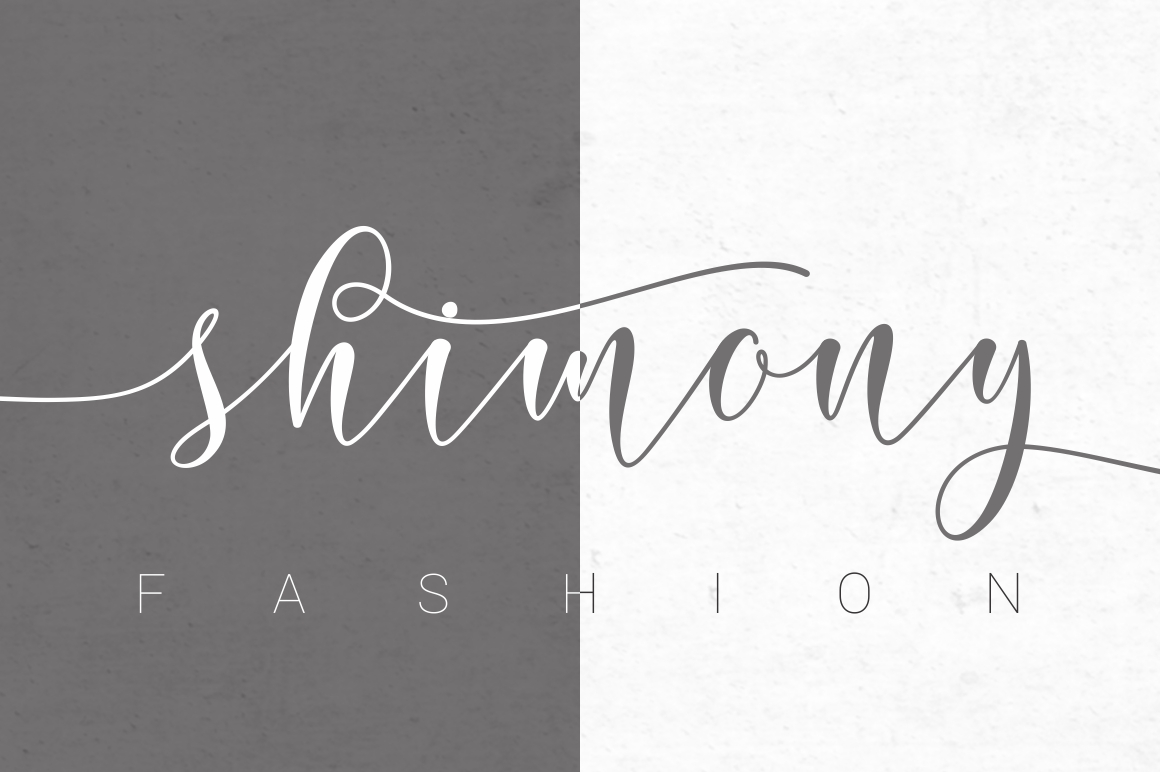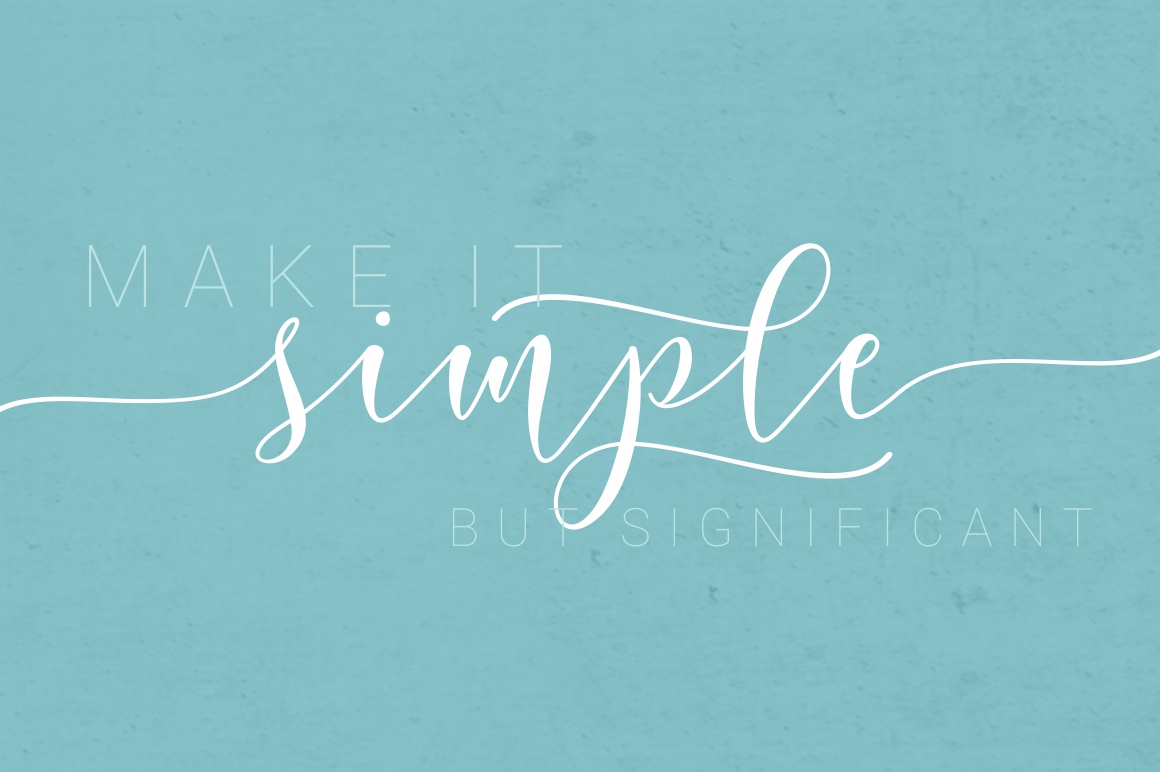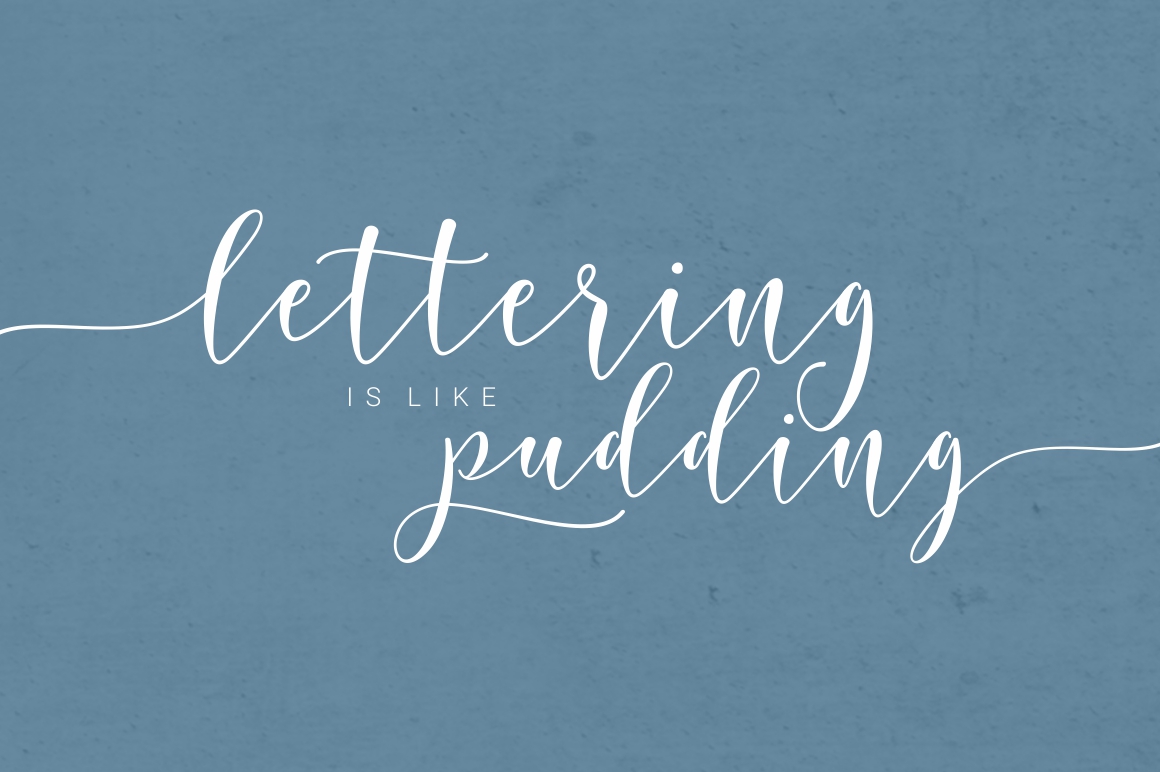
Introduction to Rosetica Font
As a designer, have you ever been stuck on a creative project, struggling to find the perfect font to bring your vision to life? We’ve all been there – hours spent scouring the web, searching for that elusive design resource that will elevate our work. But what if we told you that your search is over? Enter the Rosetica Font, a stunning script font created by FadeLine that’s sure to be the game-changer your projects need.
With its smooth, elegant lines and over 700 unique handmade glyphs, the Rosetica Font is a high-quality design resource that’s perfect for any creative project. Whether you’re working on a logo, a brochure, or a social media campaign, this font is sure to add a touch of sophistication and style to your work.
Key Features of Rosetica Font
- High-quality design resource ideal for creative projects, including logos, branding, and digital designs.
- Features a unique, elegant design aesthetic, making it perfect for high-end branding and creative applications.
- Includes a comprehensive character set, covering a wide range of languages and characters, making it a versatile design resource.
Honest Review: Rosetica Font
As a designer, I’m always on the lookout for high-quality design resources that can elevate my creative projects. The Rosetica Font is one such find that I’m excited to share with you.
What works well is its elegant, cursive script that’s perfect for titles, headings, and even body text. The font’s refined curves and subtle flourishes give it a sophisticated look that’s sure to impress. I particularly appreciate its transparent background, making it easy to layer over images or backgrounds without compromising the design.
Here are some key features that make the Rosetica Font stand out:
- ✨ Elegant, cursive script perfect for titles, headings, and body text
While the Rosetica Font is an excellent choice for most designers, I do find that it’s limited in terms of font styles and weights. This may not be a major issue for some, but it’s worth noting if you’re looking for a more comprehensive font family.
Overall, I’m thoroughly impressed with the Rosetica Font, and I think it’s a great addition to any designer’s toolkit.
Common Use Cases for Rosetica Font
The Rosetica Font is suitable for a variety of creative projects, including logos, business cards, brochures, and social media graphics. Its transparent background feature makes it ideal for designs that require a subtle, elegant look.